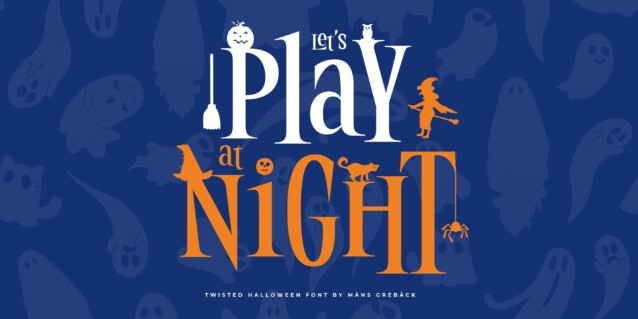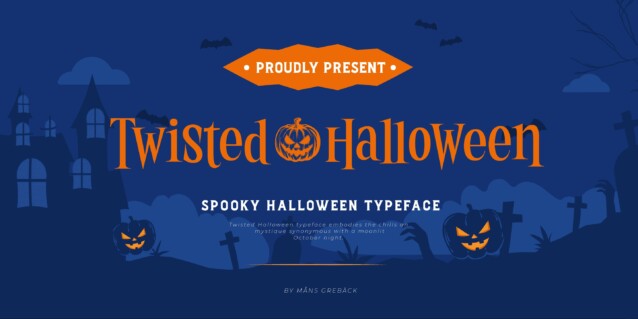
Twisted Halloween Font
Twisted Halloween Font is a spooky and assertive decorative font. Twisted Halloween typeface embodies the chills and mystique synonymous with a moonlit October night. Out of the norms, its characters undulate freely, rejecting a fixed baseline, giving each word a personality tinged with a blend of spooky and retro allure. Imagine letters that dance like shadows cast by a flickering candle, seemingly sketching tales of witchcraft, mystery, and the eeriness found in episodes of the Twilight Zone. It has extensive lingual support, covering all Latin-based languages, from Northern Europe to South Africa, from America to South-East Asia. It contains all characters and symbols you’ll ever need, including all punctuation and numbers.